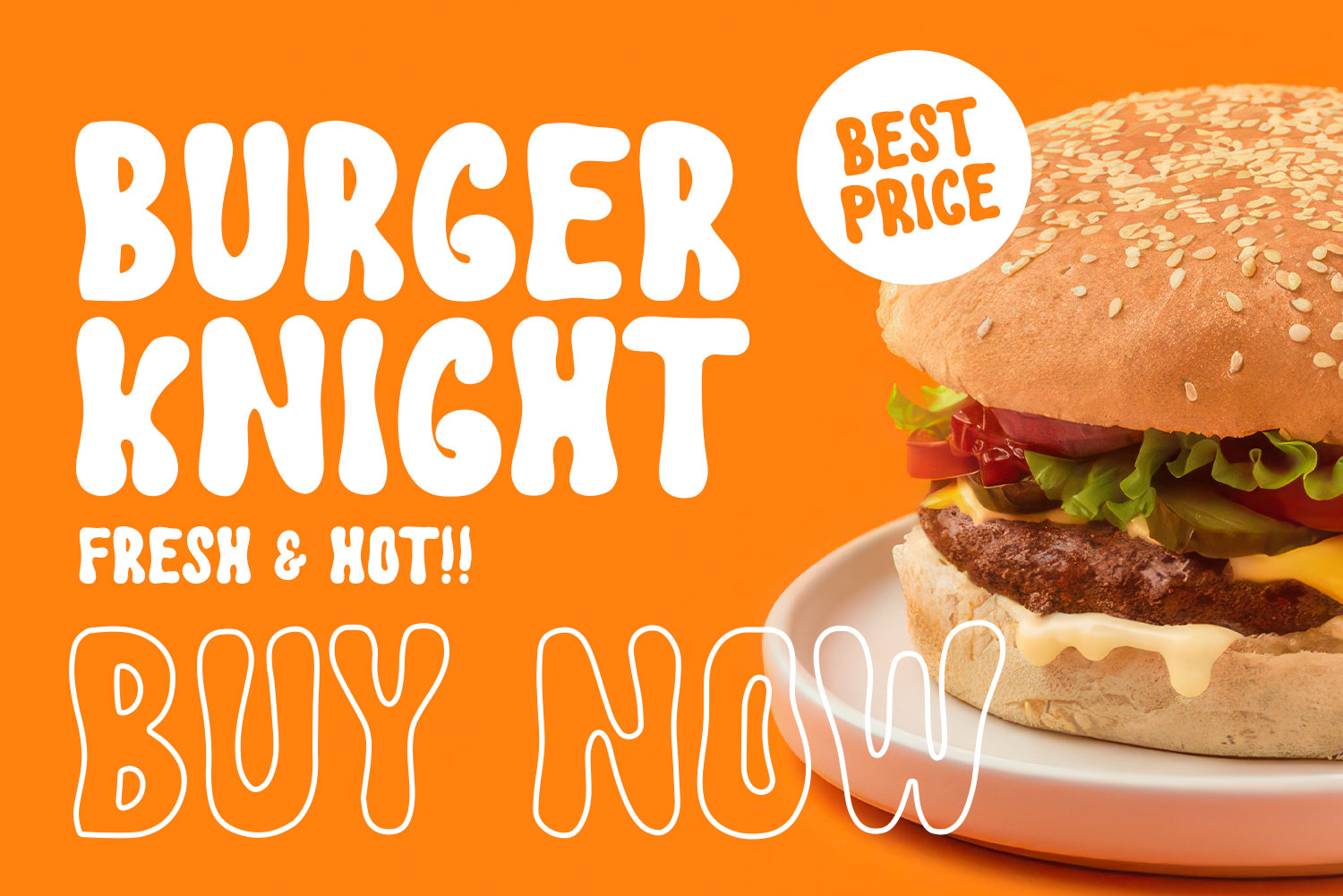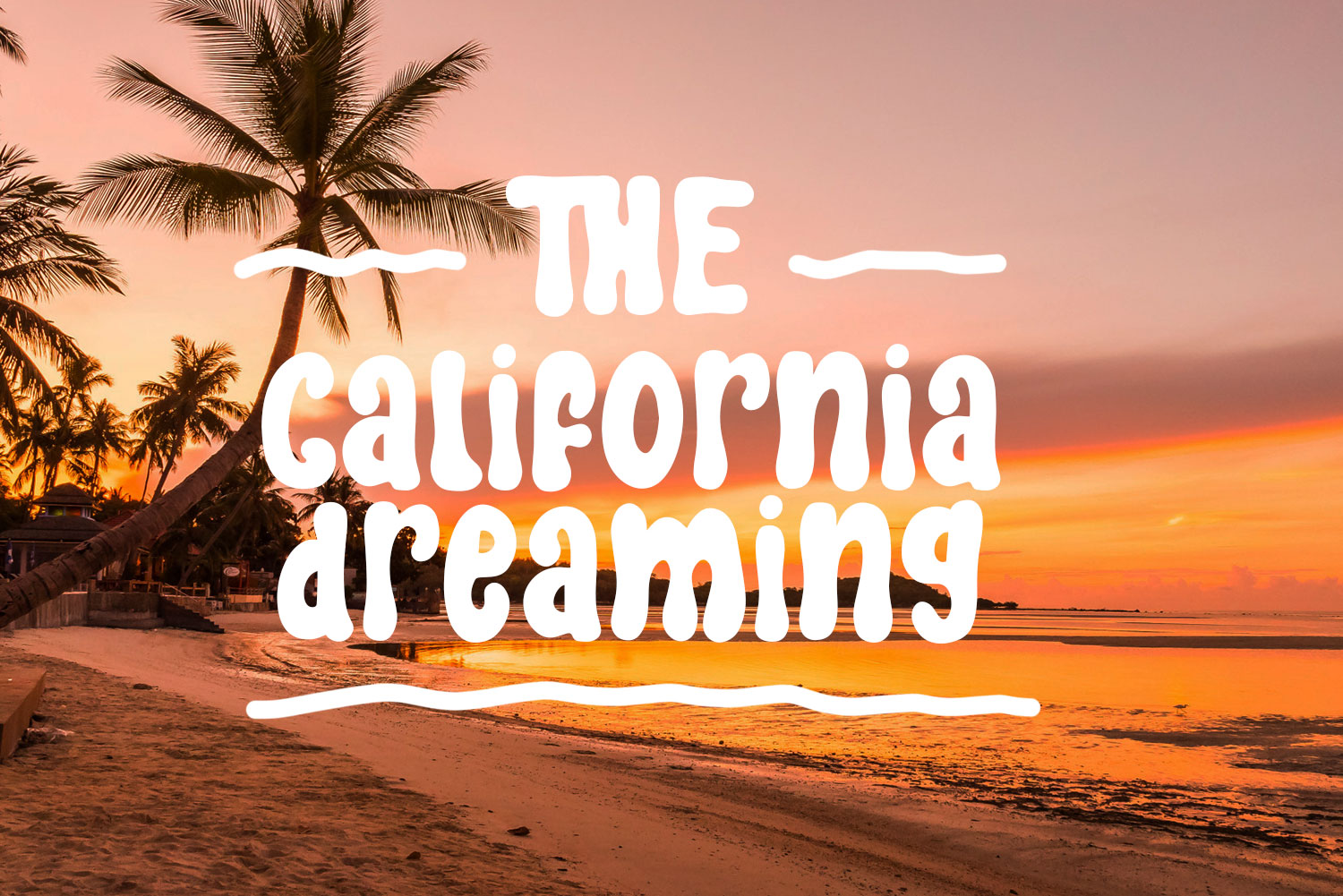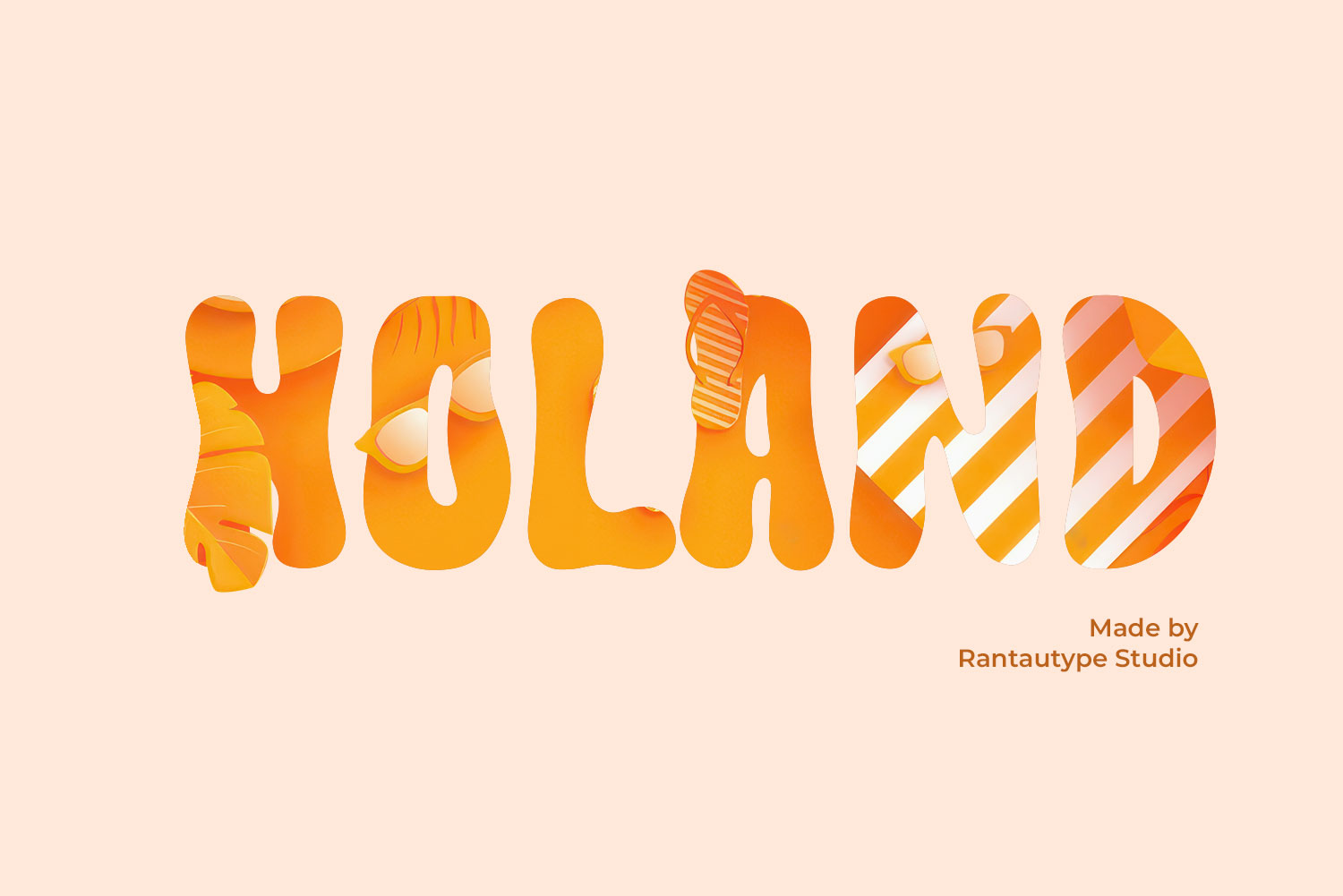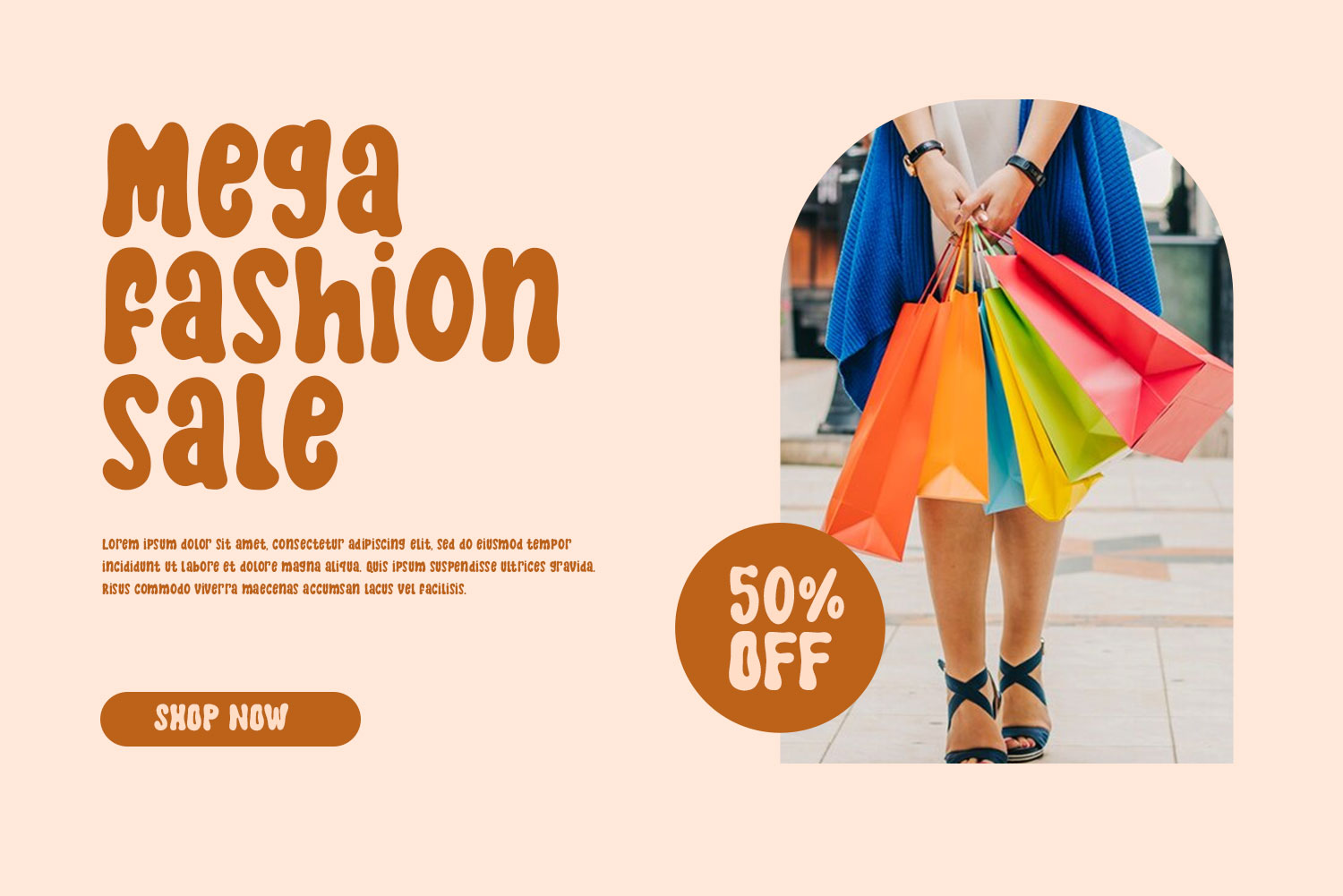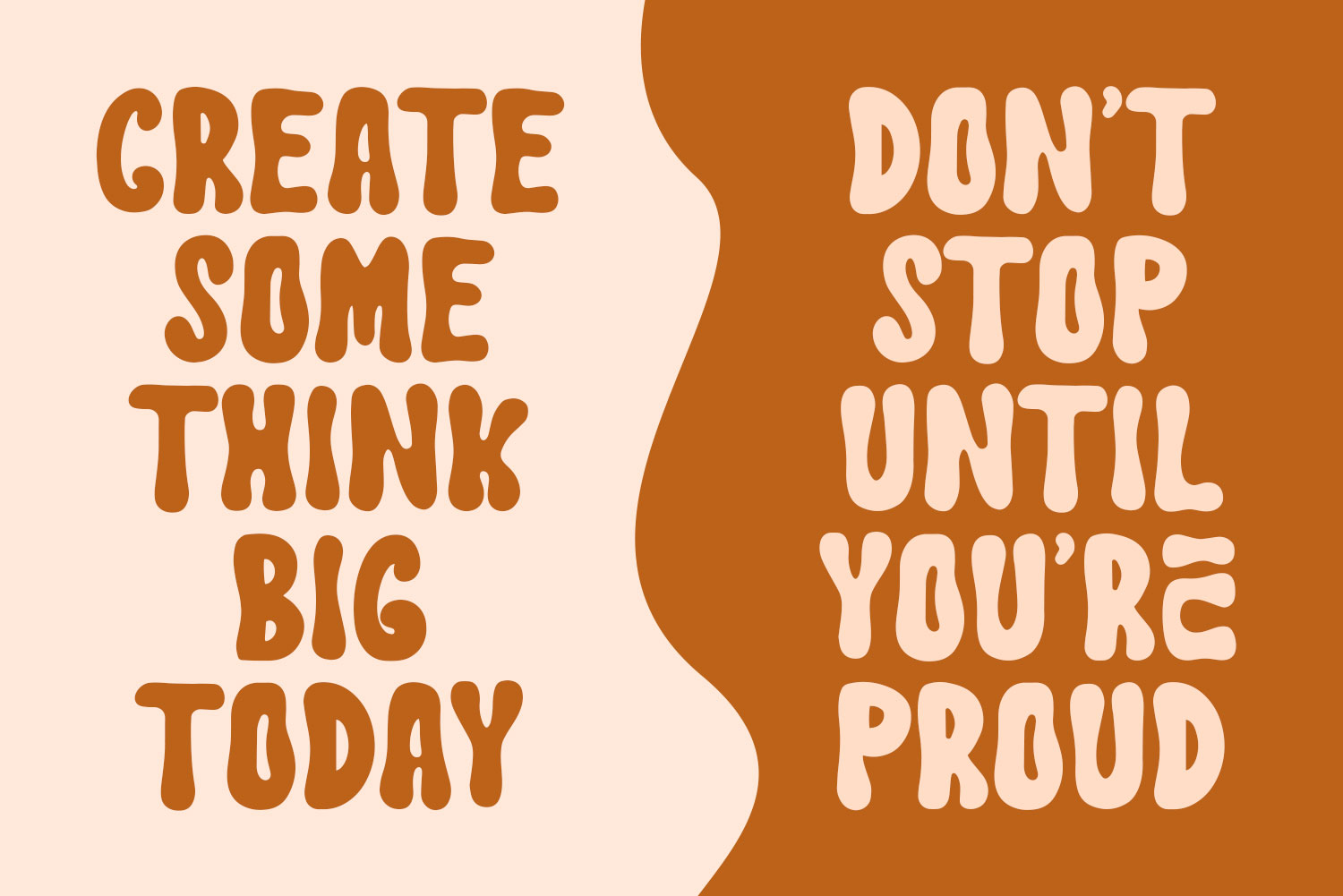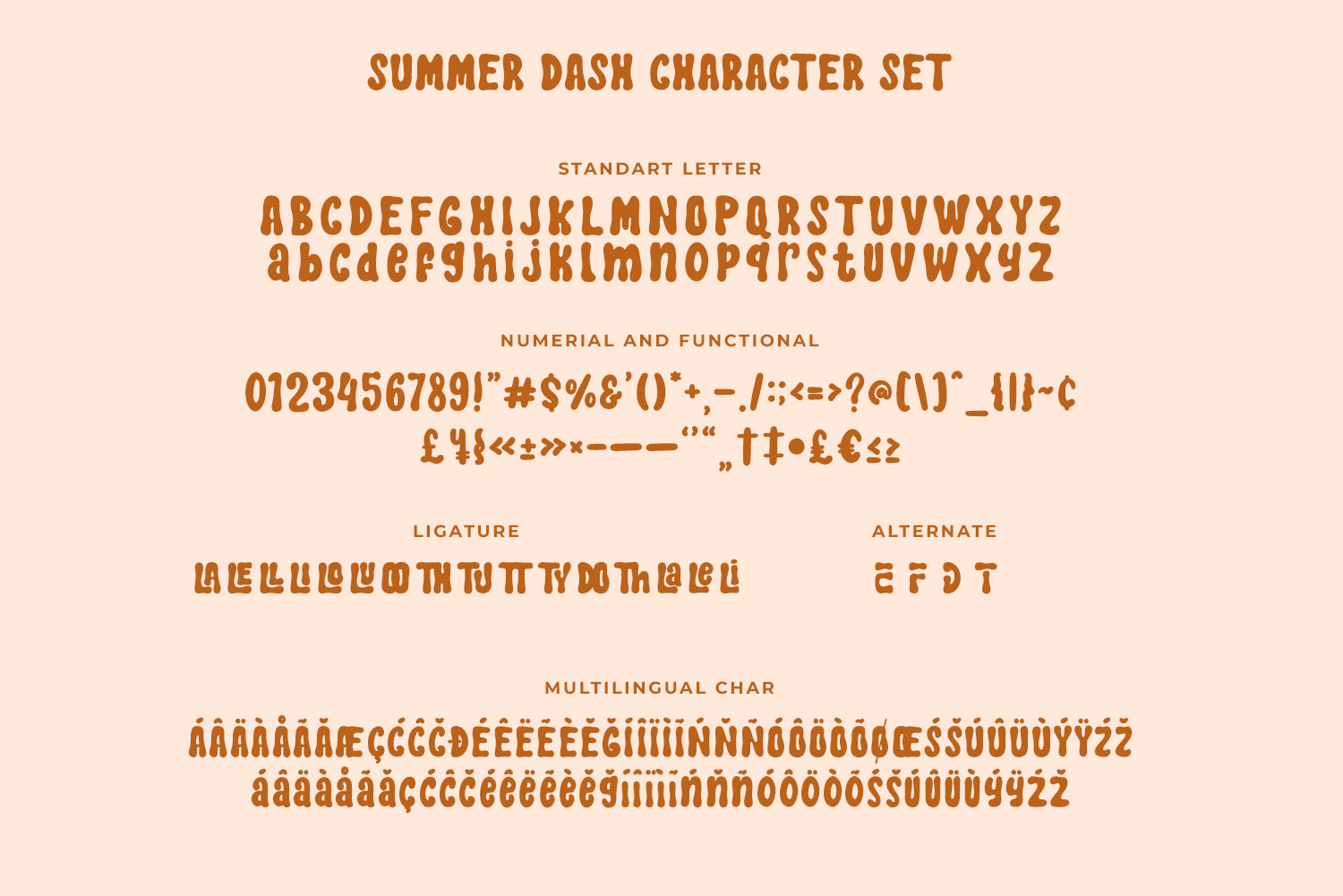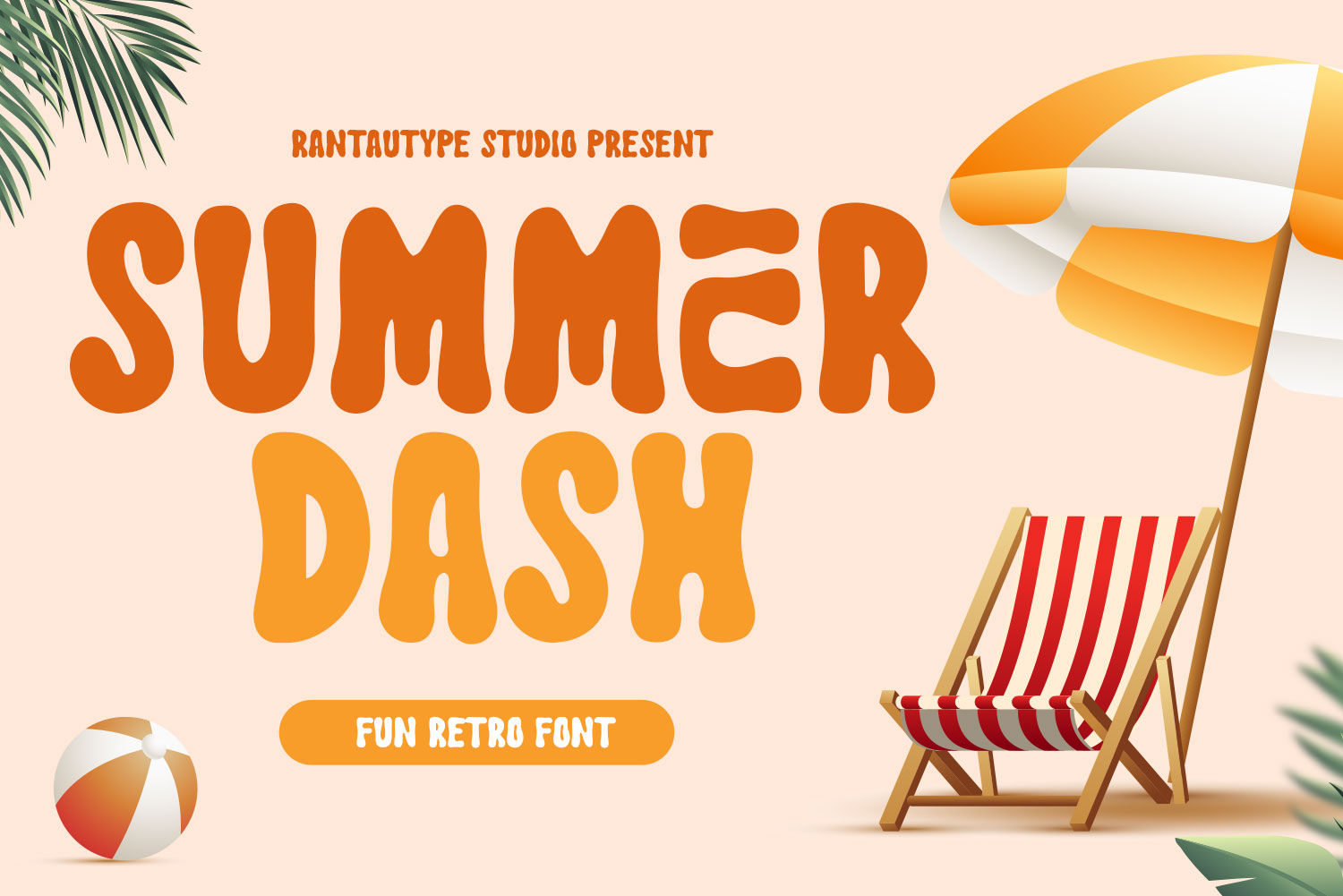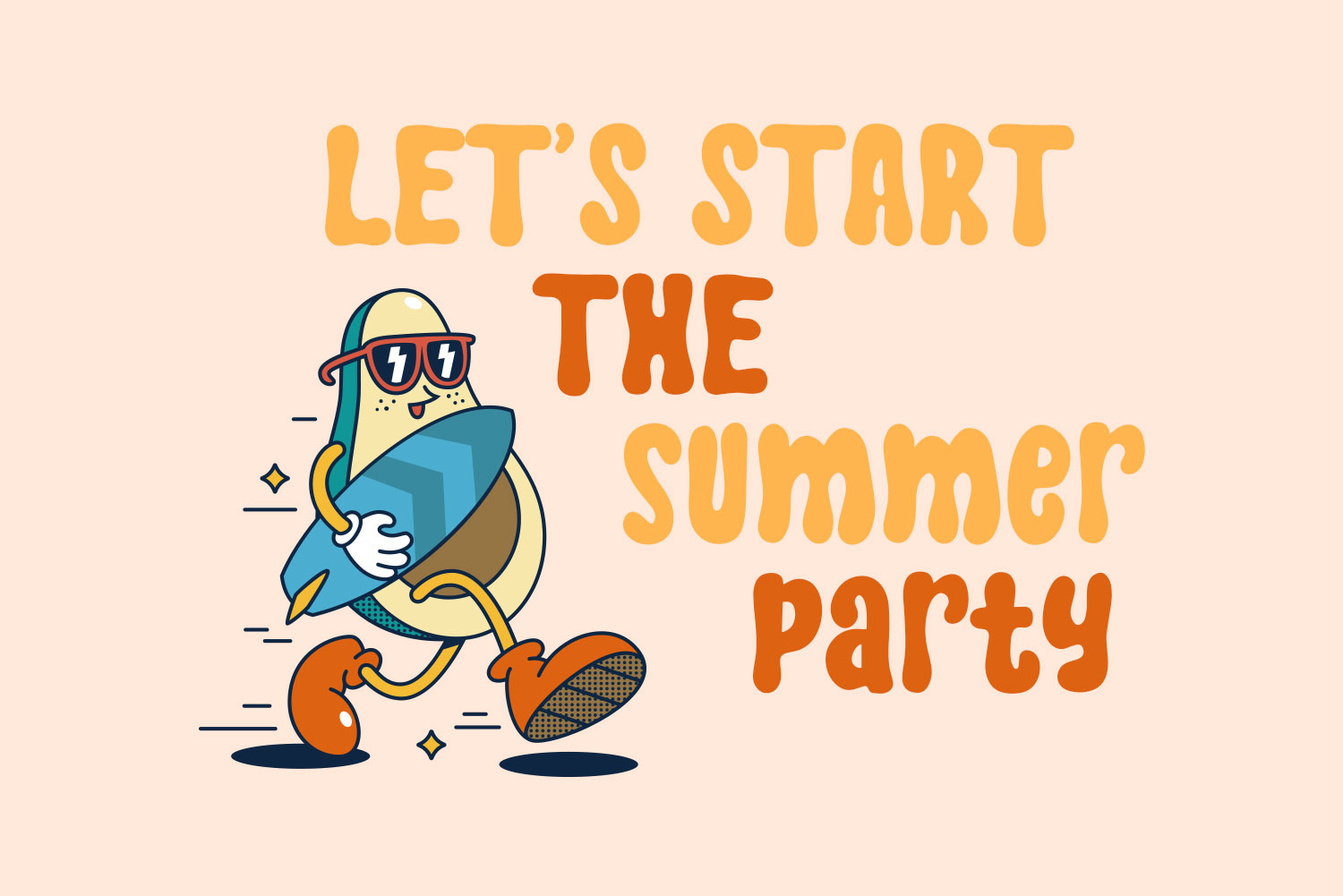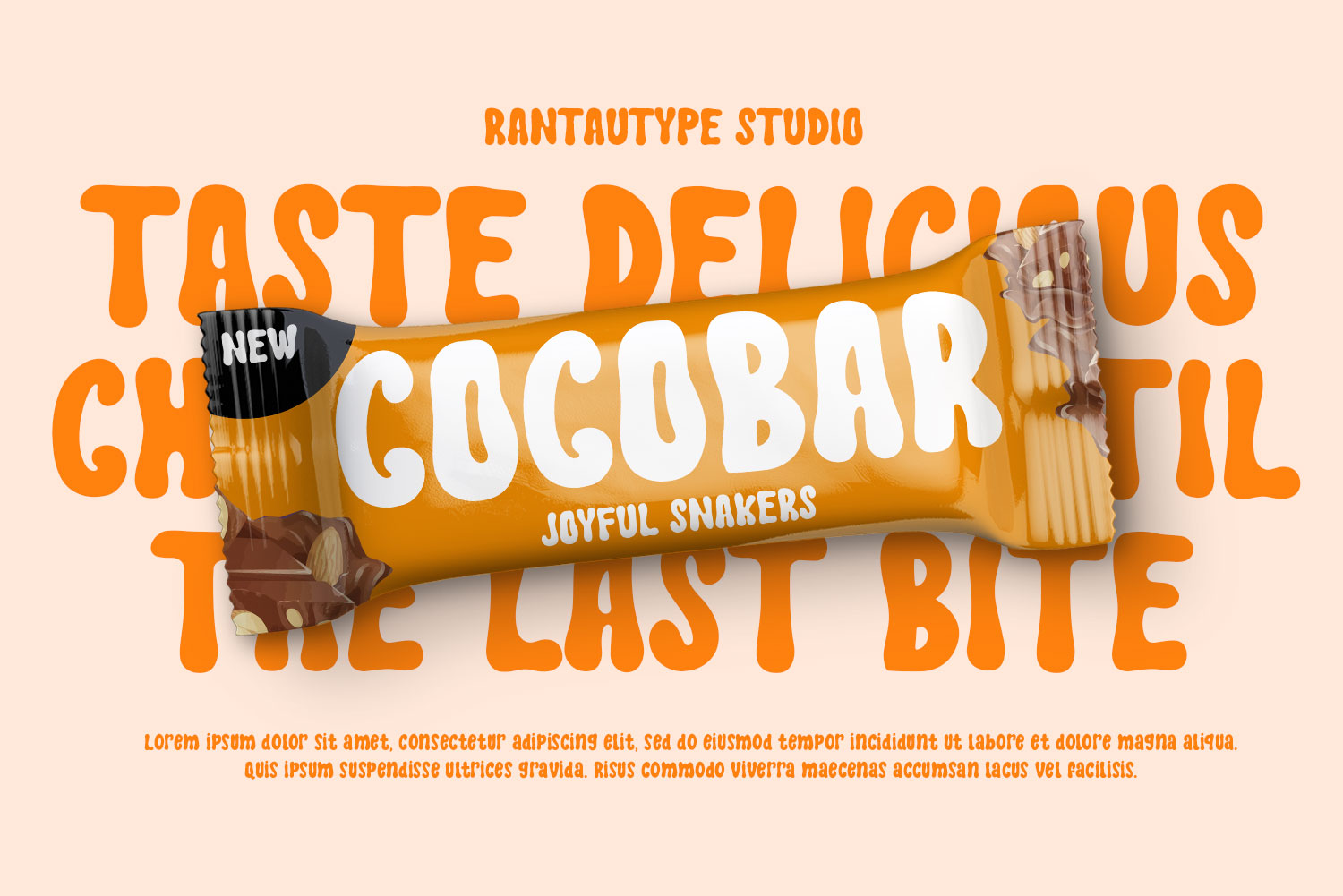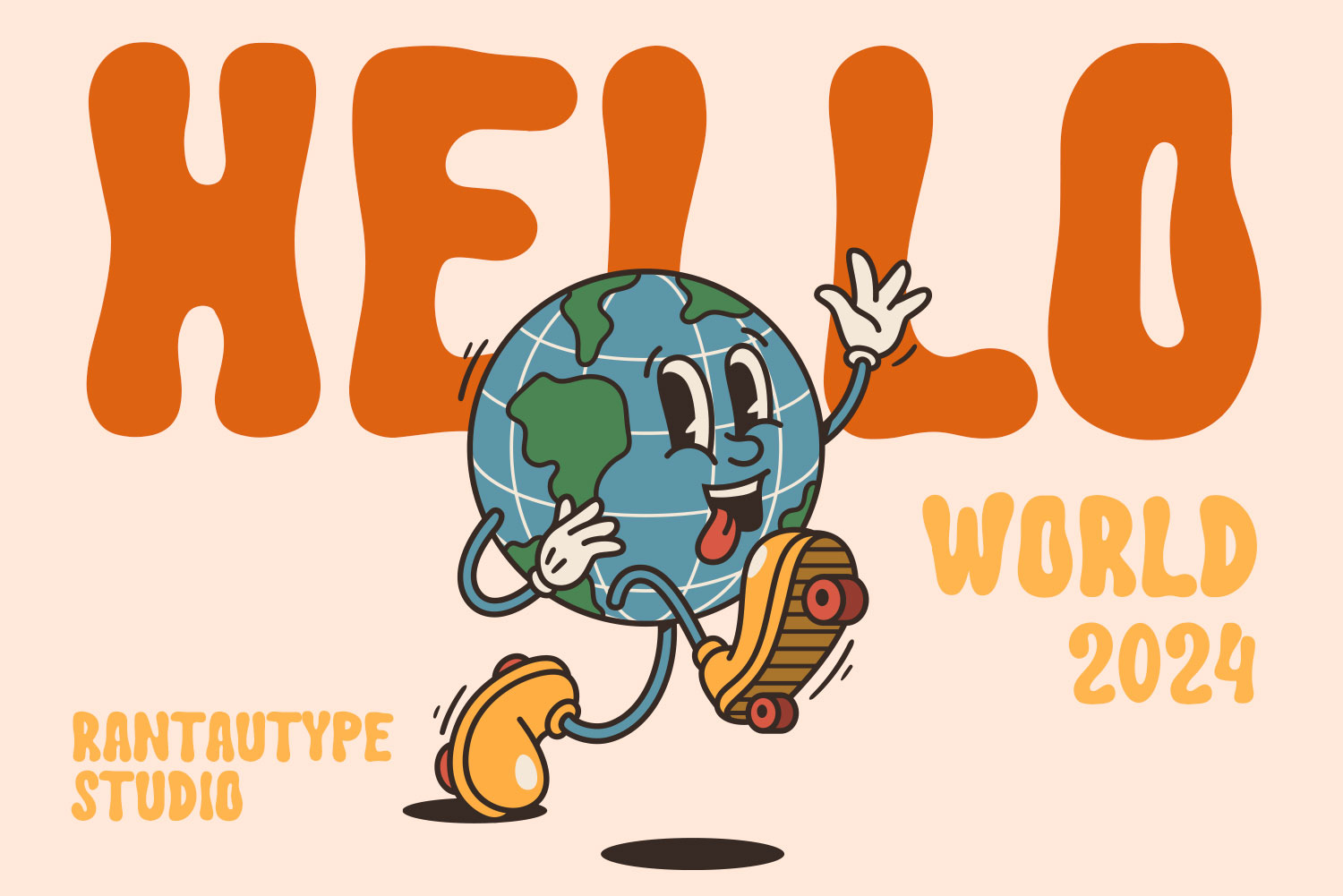
Summer Dash Fun Retro Font
Summer Dash is a retro font with soft curve and bold visual design. Unleash your creativity “with summer dash” fun and retro style vibes.
Summer Dash is a perfectly choice for any creative endeavor such as logos, advertisements, stationery, branding project, display and magazine, headline, corporate brand, product design, label, business project and many other project with old futuristic touch.